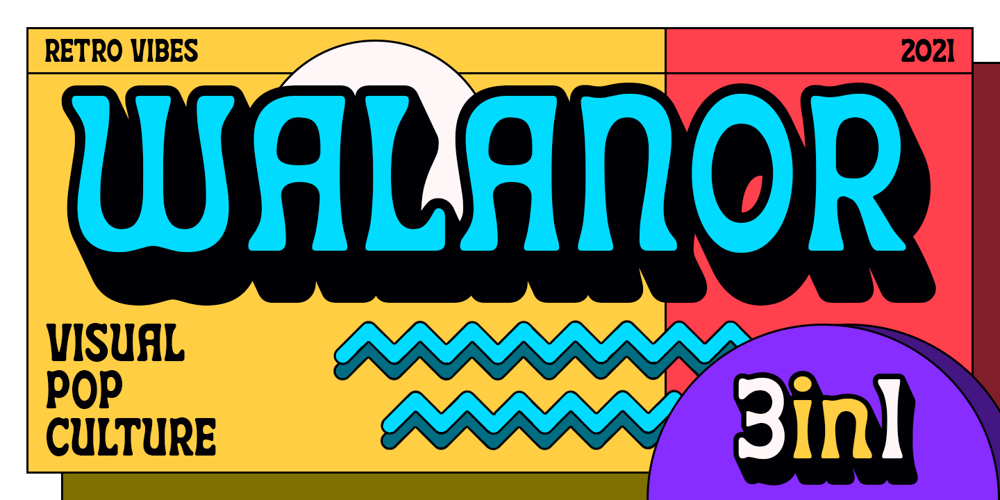
Walanor Font Family was designed by Abdilah and published by Konstantine Studio. Walanor contains 3 styles and family package options. Jump back to the retro vintage vibes with WALANOR. A bold, casual, and fun display font. Inspired by the visual trends of so-called retro and vintages from the 80s era. We talk about disco, pop culture, vinyl records, sign painting, magazines, posters, labels, and many more.